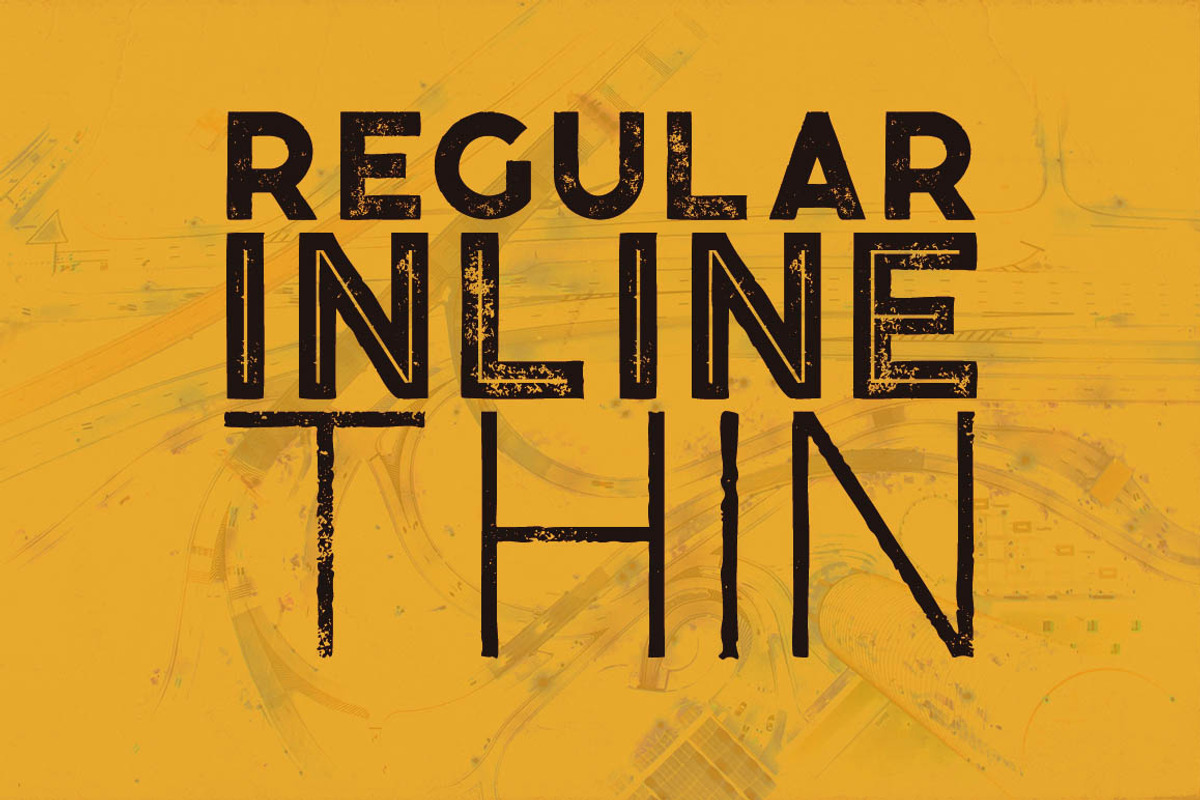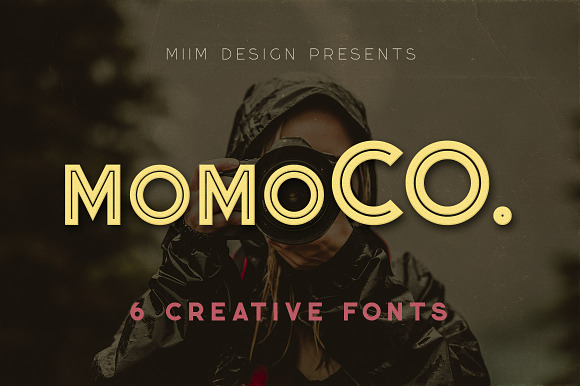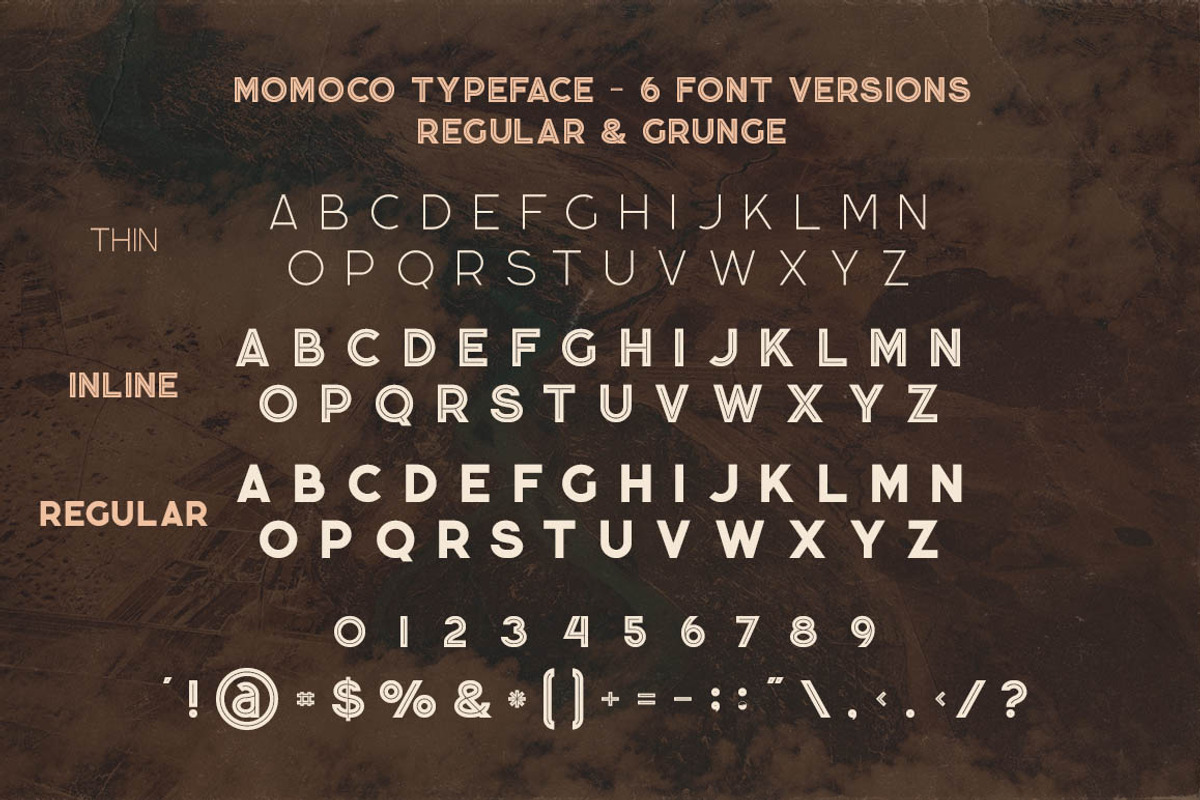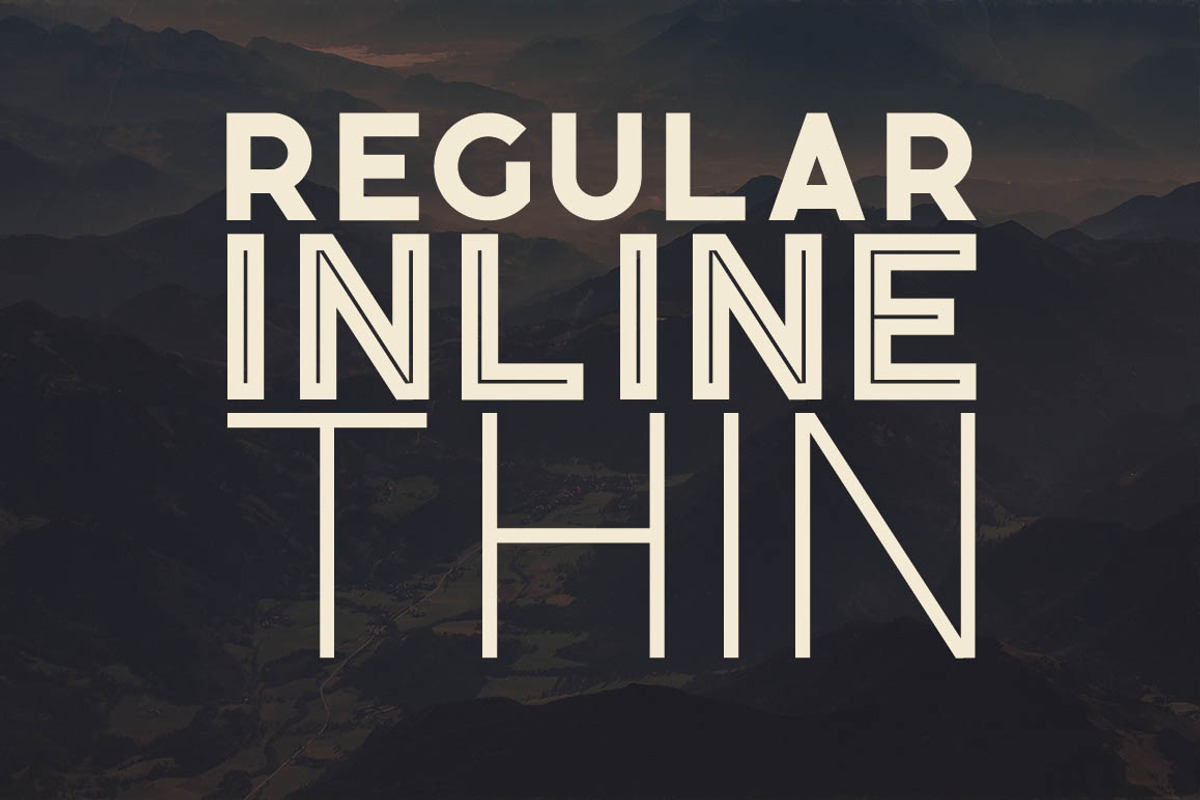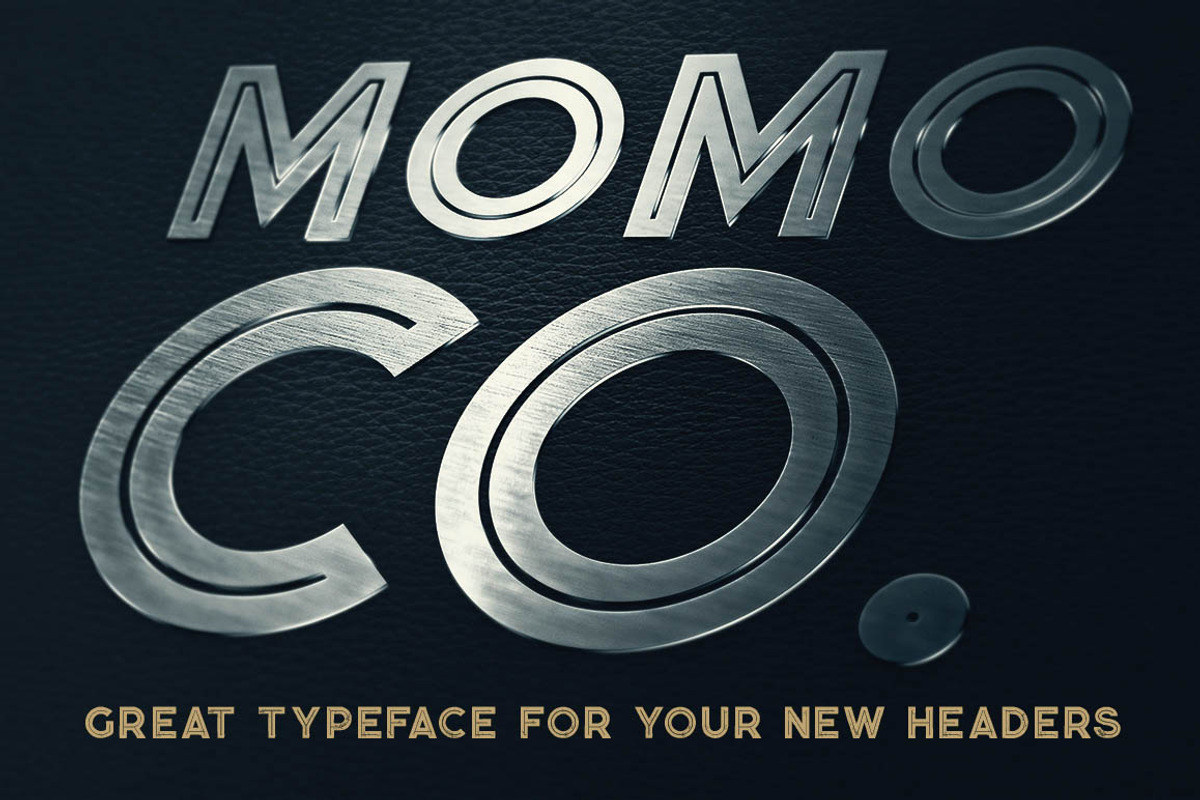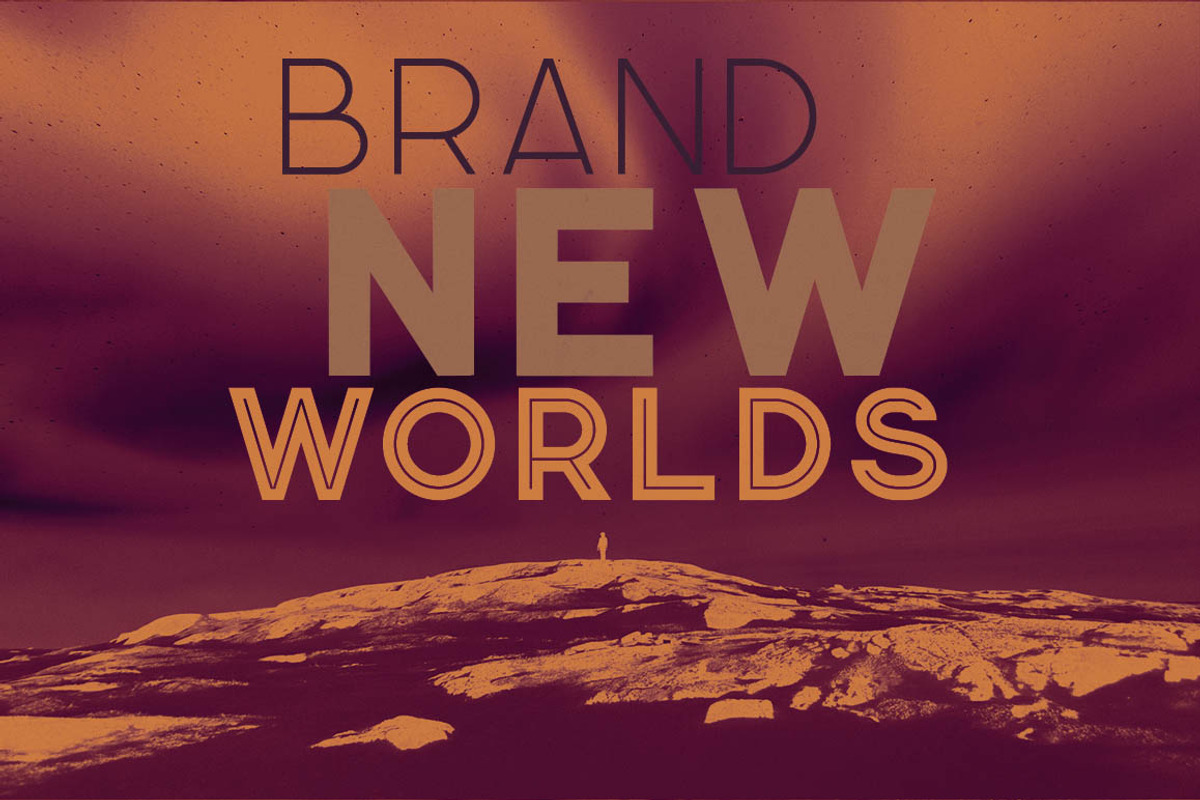
Momoco - Display Font
Creative, modern & decorative font for your new projects. Great for modern or creative style projects!
Why Momoco - Display Font is worth a look
Momoco - Display Font by MIIM fits naturally into Branding, posters, packaging, typography.